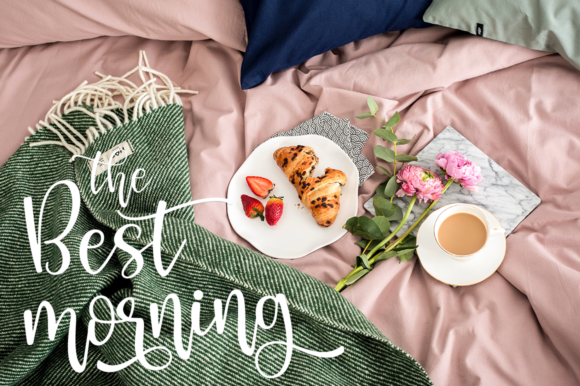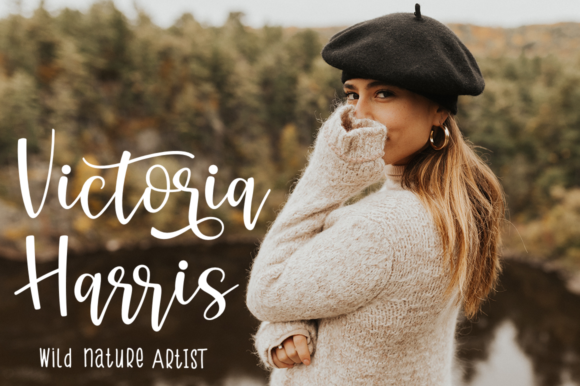
Vanilla Cream Font
db-ku.com - Script & Handwritten -- The Vanilla Cream is a new modern handmade font. It’s ideal for branding and decorating your projects.